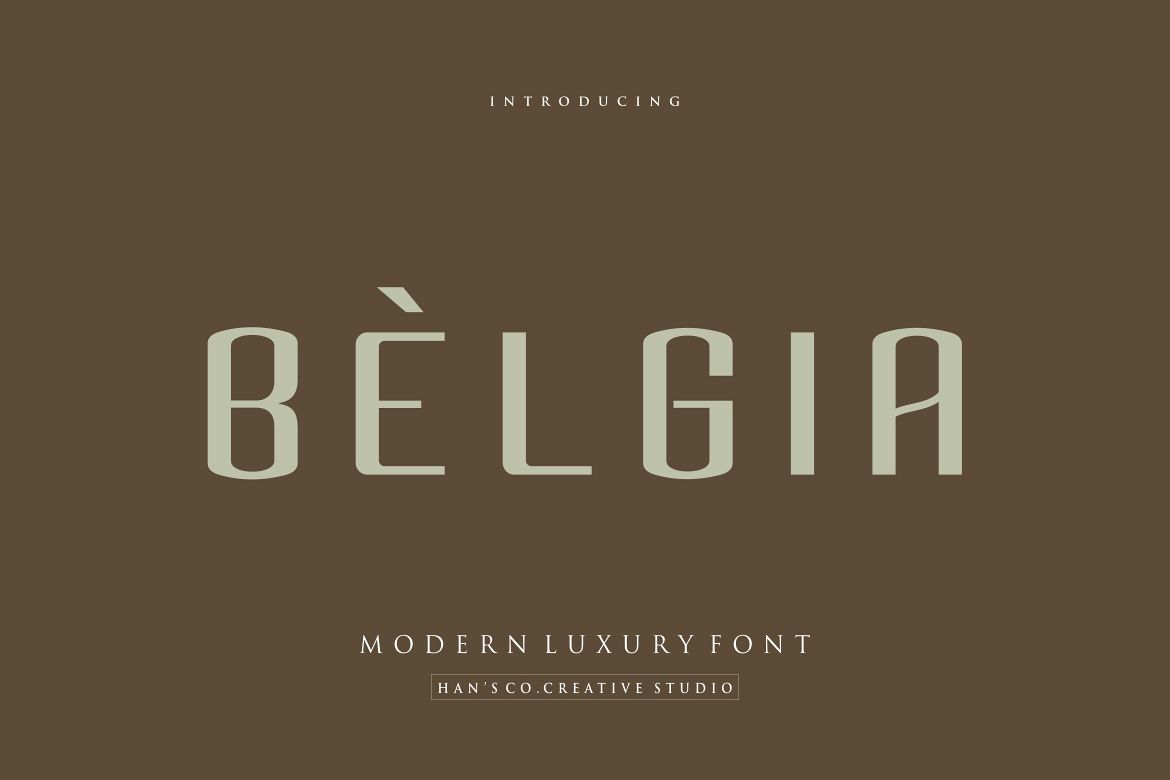
BELGIA FONT
Belgia Font is an elegant san serif font designed with full and high accuracy to create a classy font style. It perfectly represents luxurious yet elegant in a modern and minimalist way.
This font will make perfectly for logo design, packaging or invitation cards which requires a some touch of elegant, masculine and modern style.